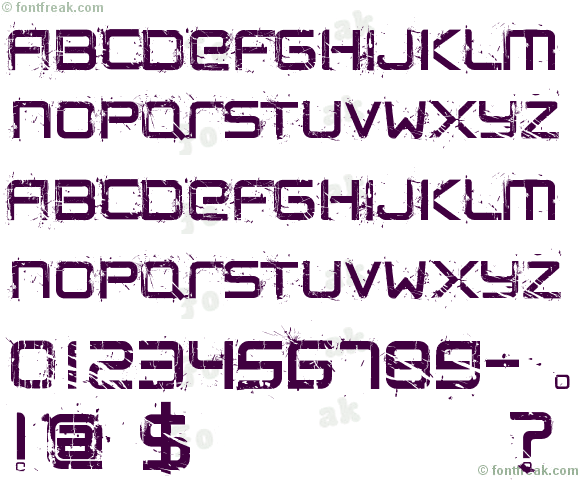
CRUSHED
The CRUSHED font by Hero Fonts is a striking display typeface that stands out with its unique aesthetic. Designed by Guilhem Greco in 2014, this freeware font offers a bold, distressed look that conveys a sense of raw energy and attitude. As a display font, CRUSHED is characterized by its thick stroke weight and textured finish, which creates an eye-catching contrast that draws attention. The uneven spacing and rugged decorative elements enhance its visual appeal, making it ideal for a variety of creative applications.
This font is particularly well-suited for use in projects that require a strong visual impact. For instance, it can be effectively used in movie posters to evoke a sense of drama and excitement. Its boldness also makes it a great choice for restaurant menus, where it can help highlight special dishes or create a unique dining atmosphere. Additionally, CRUSHED is perfect for branding materials, such as logos and business cards, that aim to convey a modern, edgy vibe. Content creators and graphic designers will find this font useful for social media graphics, where it can help capture the audience's attention quickly.